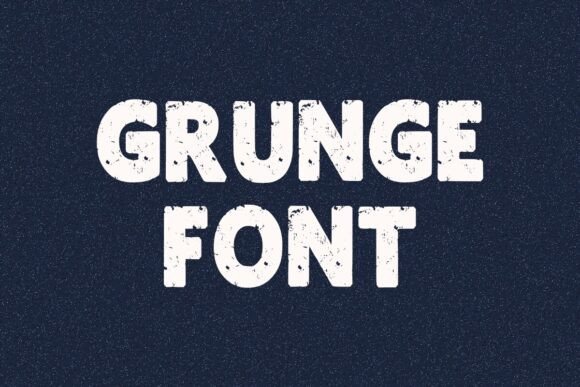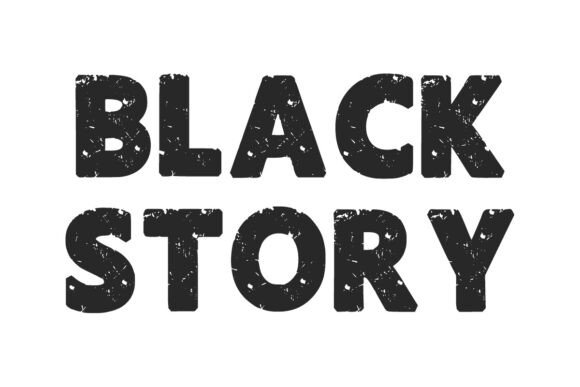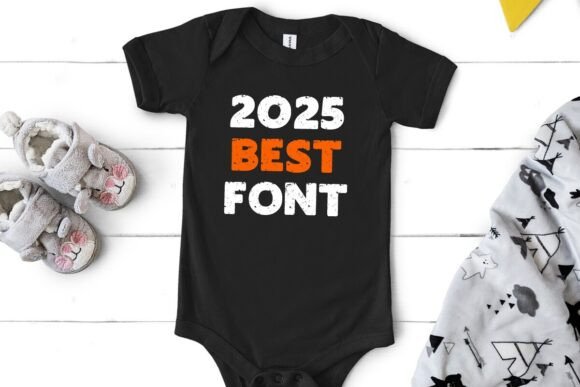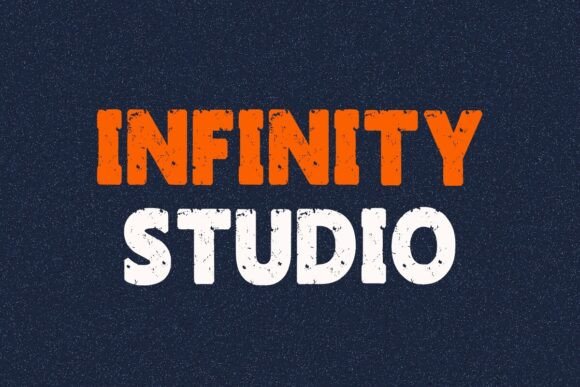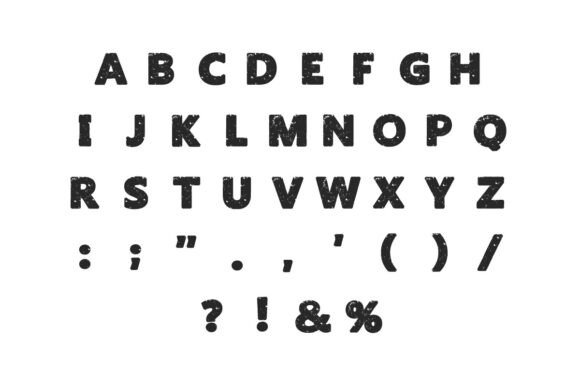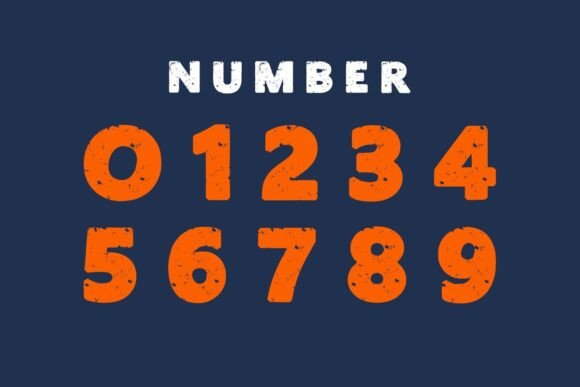
Introduction to Rubber Rock Font
Have you ever been working on a creative project, pouring your heart and soul into it, only to be stuck on the perfect font to bring it all together? I know I have. It’s that moment when everything seems just out of reach, and you’re about to give up hope. But then, like a breath of fresh air, you stumble upon the perfect design resource – and everything changes.
Meet the Rubber Rock Font, a high-quality, bold display font that’s sure to take your creative project to the next level. With its vintage, retro feel and grunge-inspired aesthetic, this font is perfect for adding a touch of grit and sophistication to your designs.
Key Features of Rubber Rock Font
- Unique, hand-drawn design style with a fun and playful vibe, making it perfect for creative projects and designs.
- Perfect for use in a variety of creative projects, including logos, branding, typography, and more.
Honest Review: Rubber Rock Font
As a designer, I’m always on the lookout for high-quality design resources to enhance my creative projects. Recently, I stumbled upon the Rubber Rock Font, and I must say, it’s been a great addition to my design arsenal.
- High-quality typography: The Rubber Rock Font has crisp, clean lines that make it perfect for a variety of design projects.
However, I did encounter a few limitations ⚠️:
- Limited font styles: The Rubber Rock Font only comes in a few styles, which might not be suitable for projects that require a lot of font variation.
- Not ideal for large text: The font might not be the best choice for large text, as it can become difficult to read at larger sizes.
Overall, I’m impressed with the Rubber Rock Font, and I would definitely recommend it to designers who are looking for a high-quality, free font for their creative projects.
The Rubber Rock Font is a high-quality, free download design resource ideal for creative projects. Its transparent background makes it perfect for use in various design applications.
Tips for Getting the Most Out of Rubber Rock Font
Use the Rubber Rock Font in conjunction with other design elements to create a cohesive look.
Experiment with different font sizes and colors to achieve the desired effect.
The Rubber Rock Font is ideal for use in creative projects such as:
Infographics
Brochures
Posters